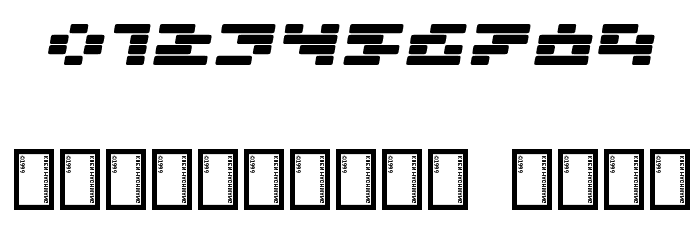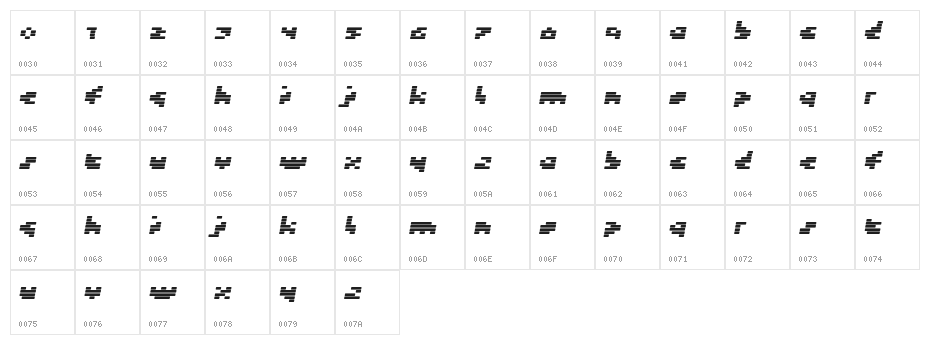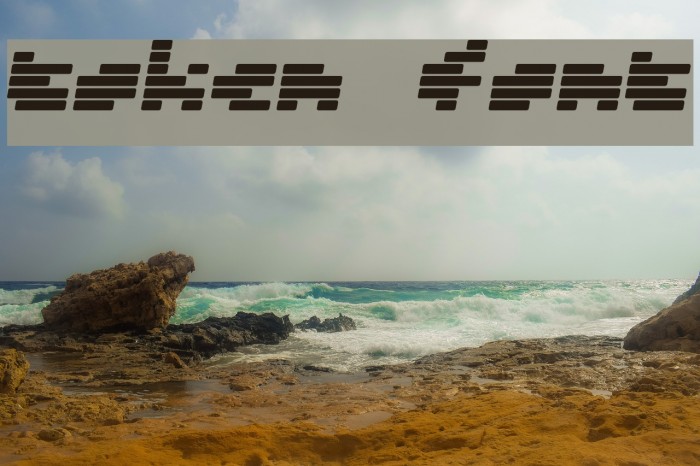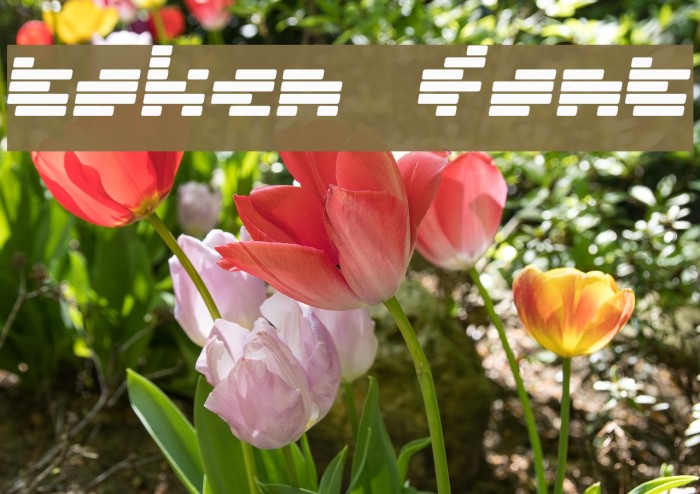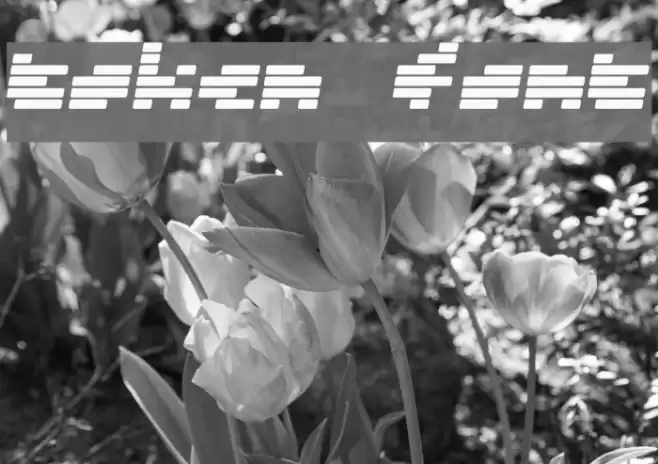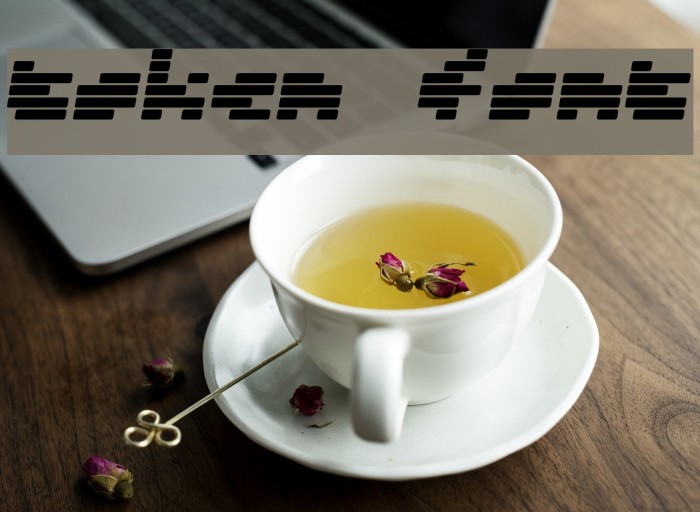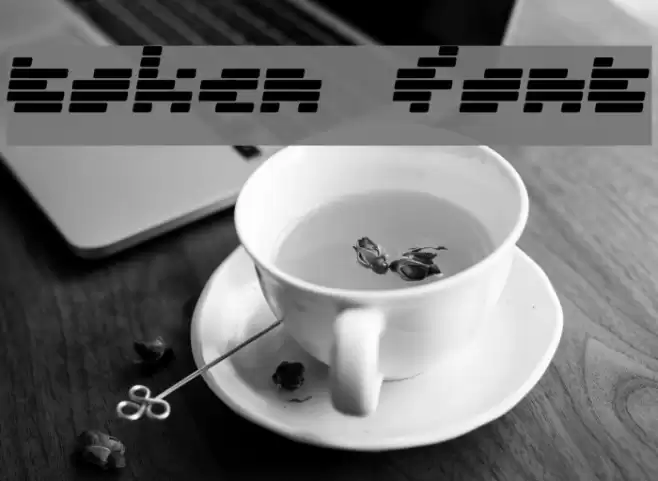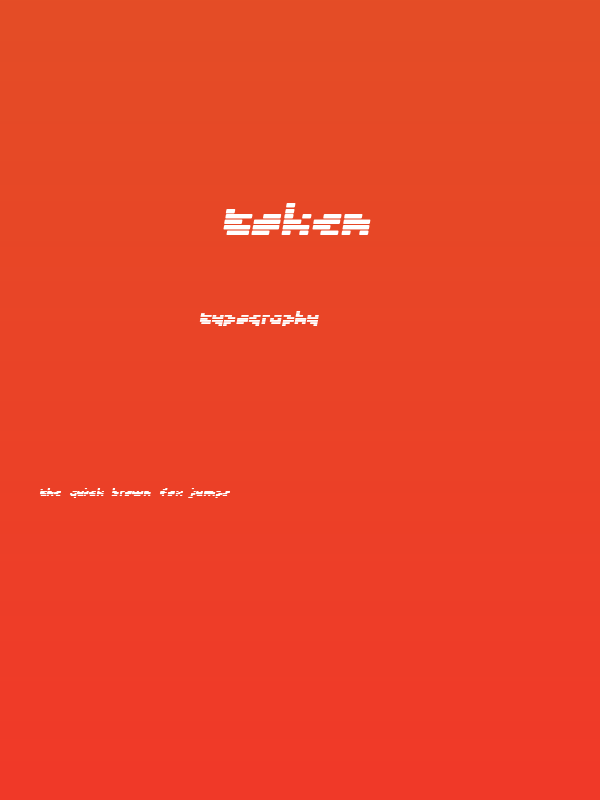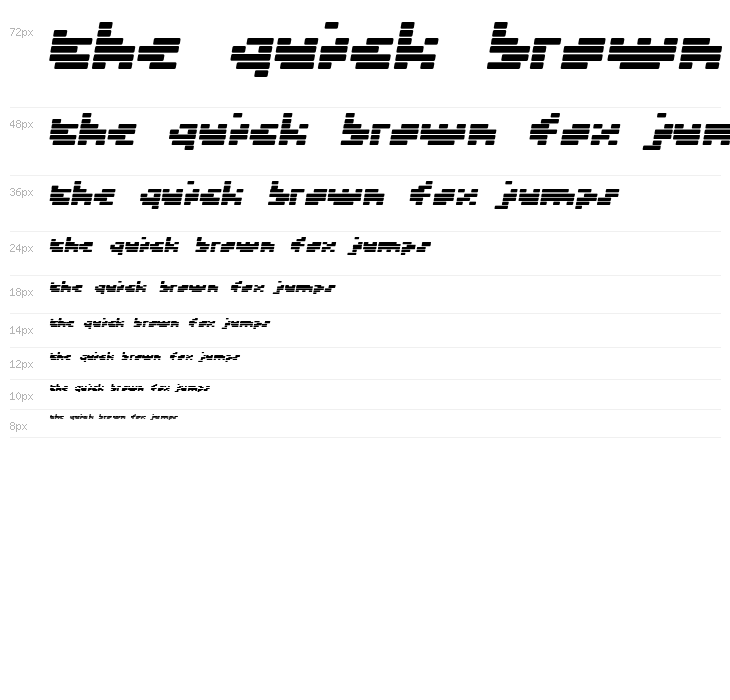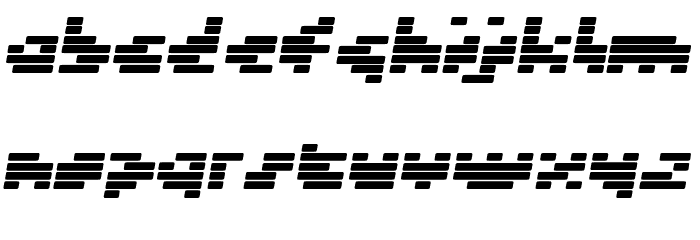
Token Font
Token Description
This font features a unique, modern design with a digital, pixelated aesthetic. Each character is composed of distinct horizontal segments, creating a futuristic and tech-inspired look. The uppercase and lowercase letters maintain a consistent style, with the same segmented structure applied to numbers and special characters. The bold, geometric shapes give it a strong presence, making it suitable for eye-catching designs. The spacing between characters is tight, enhancing the compact and cohesive appearance. This font is ideal for projects that require a modern, digital feel, such as tech branding, digital art, or futuristic themes.
Use CaseLogos, Headlines, Digital Art
Proposed ProjectsTech branding, digital art, futuristic themes, video game design, sci-fi posters.